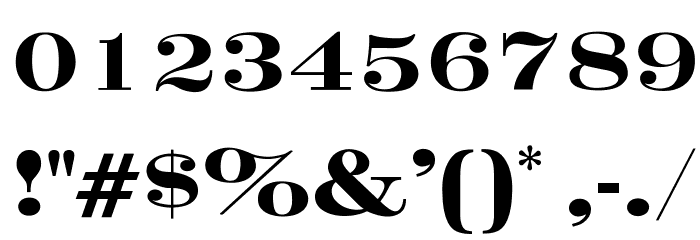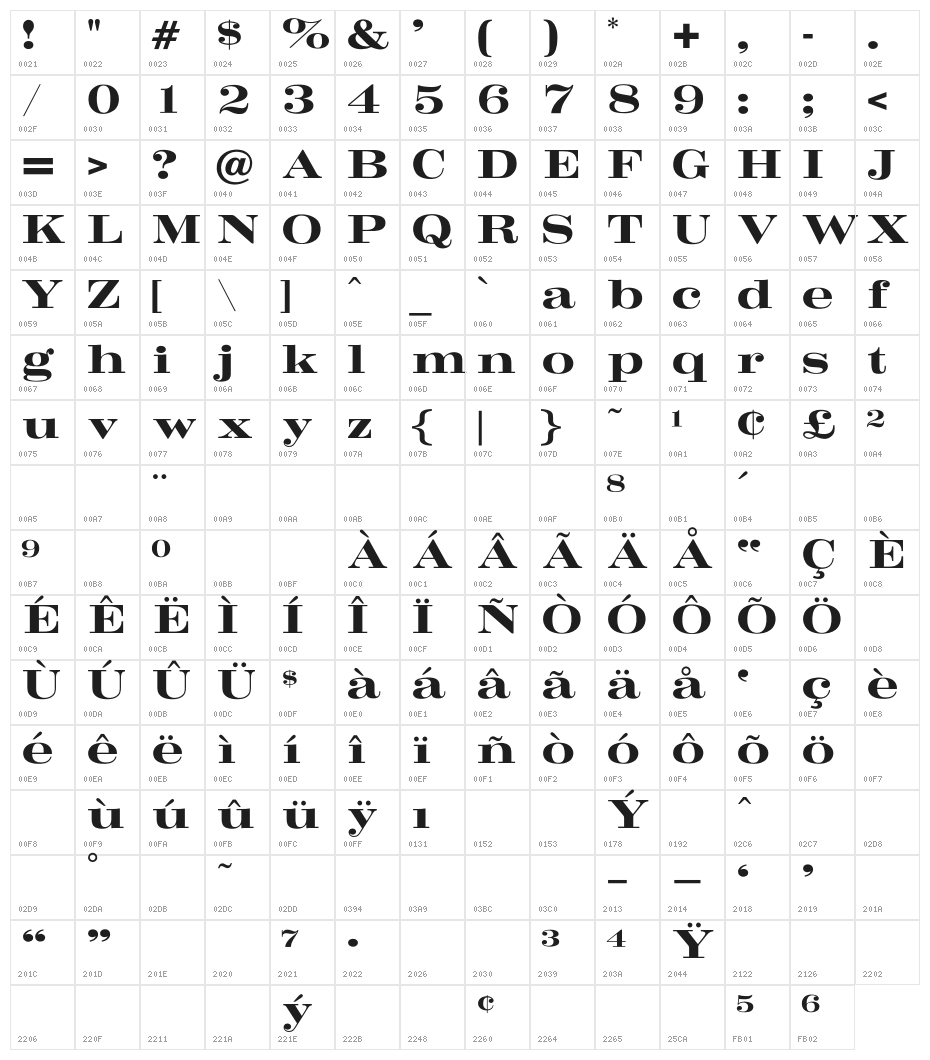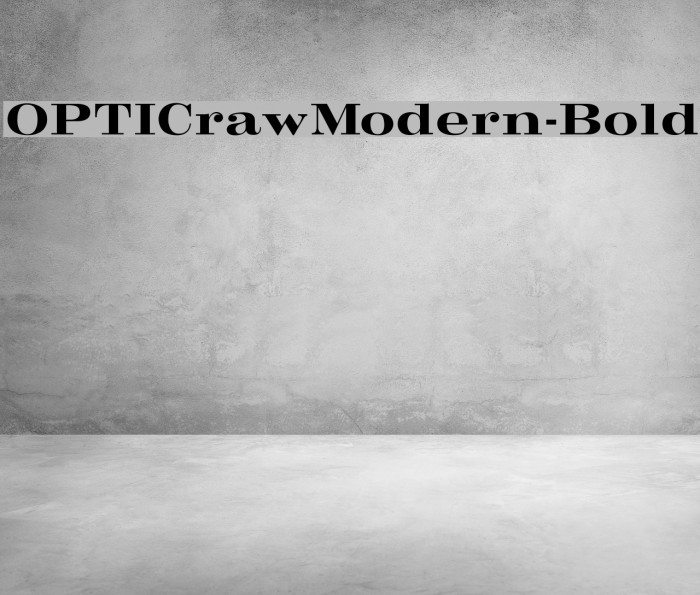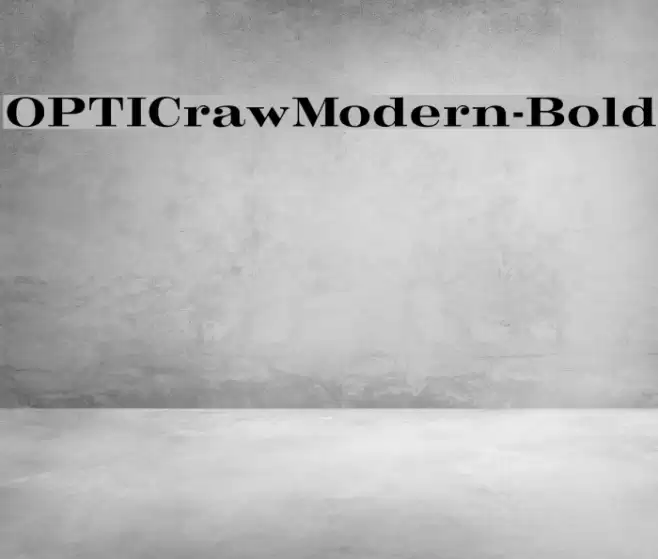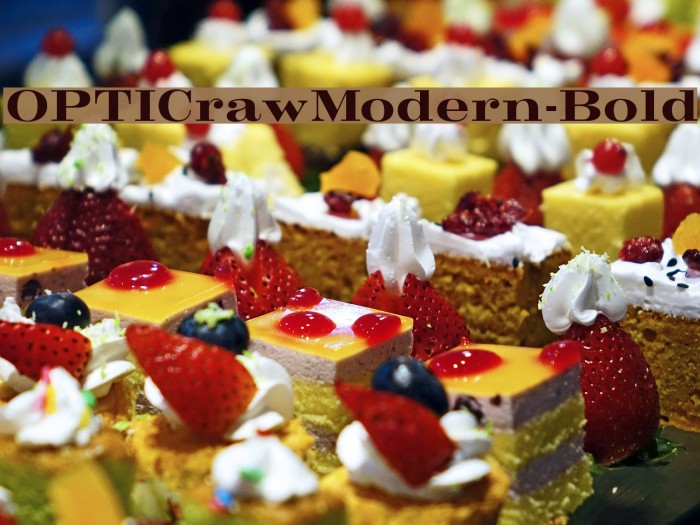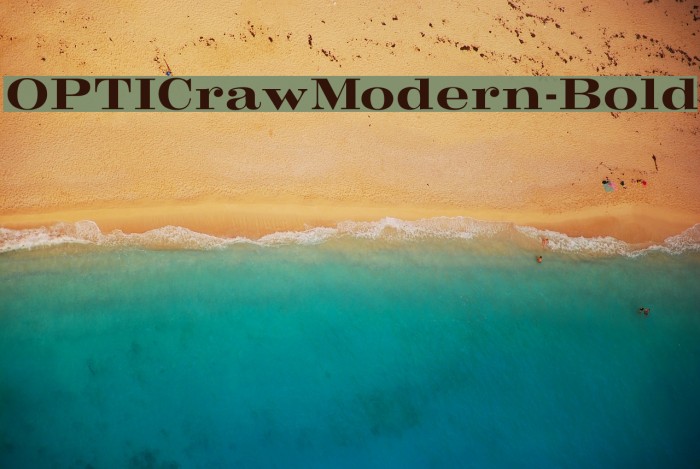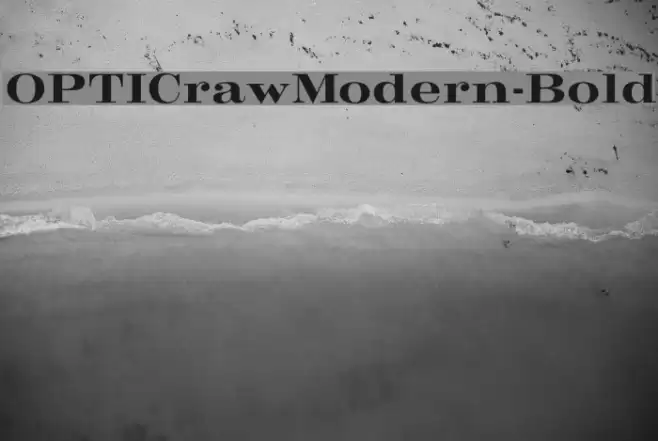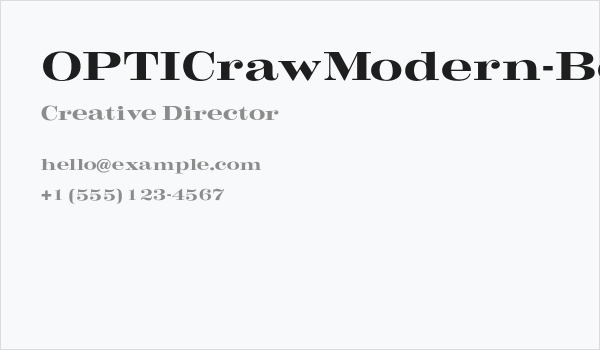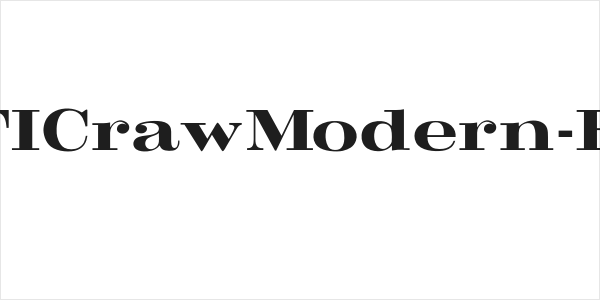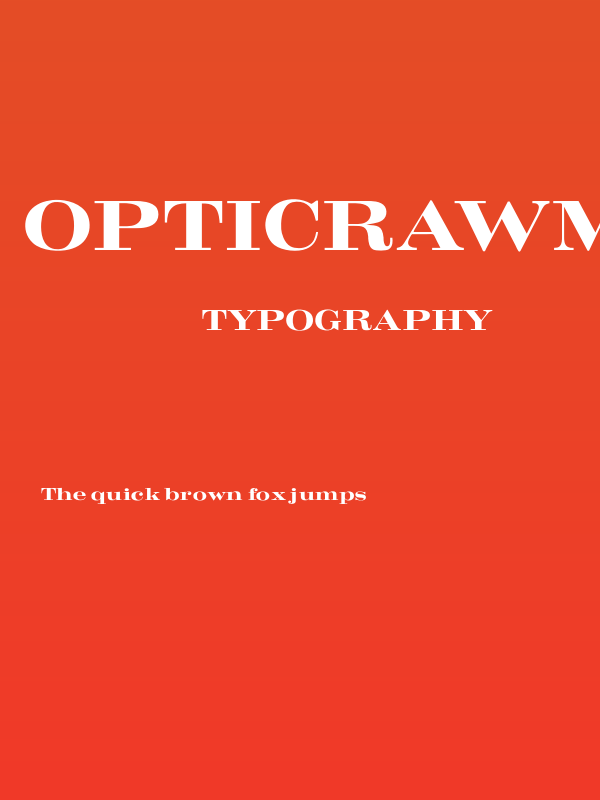
OPTICrawModern-Bold Font
OPTICrawModern-Bold Description
This font exhibits a bold and confident style, characterized by its thick strokes and high contrast between thick and thin lines. The serifs are pronounced, adding a touch of elegance and sophistication. The uppercase letters are strong and commanding, while the lowercase letters maintain a consistent flow with rounded edges. The numerals are clear and distinct, ensuring readability. Special characters are well-defined, maintaining the overall aesthetic of the typeface. This font is ideal for making a statement, with its bold presence and classic appeal.
| Proposed Projects | Ideal for headlines, branding, editorial design, and luxury product packaging. |